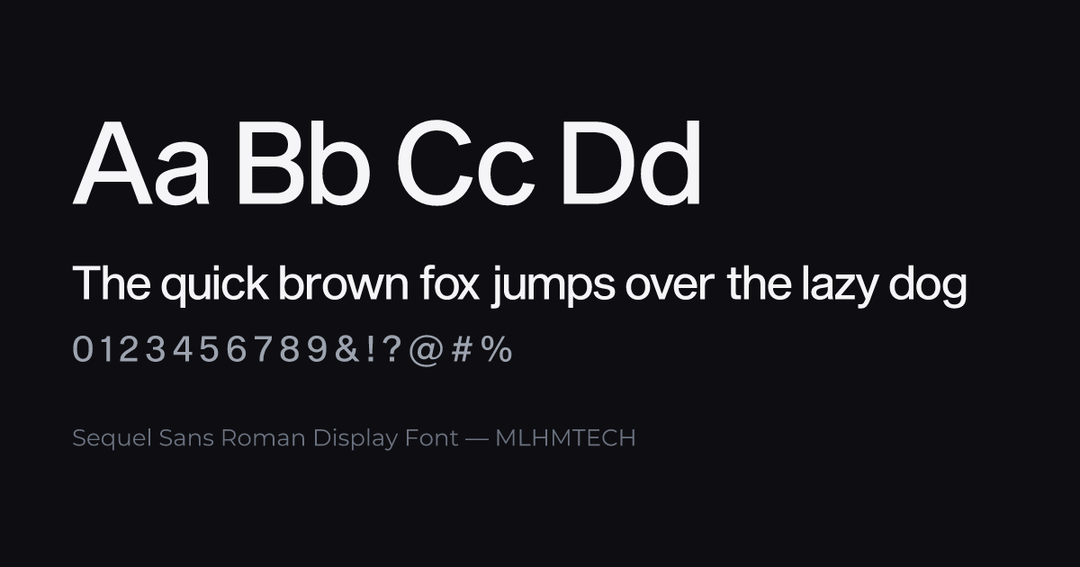
Sequel Sans Roman Display Font
Sequel Sans Roman Display is a modern, geometric sans-serif font ideal for headlines, logos, and branding. Its clean lines and balanced proportions make it a versatile choice for creative projects.
Sequel Sans Roman Display is a contemporary sans-serif typeface with a geometric structure. It features clean, open forms and a neutral yet distinctive character, making it suitable for a wide range of applications from editorial design to digital interfaces.
Whether you're crafting a bold logo, a striking poster, or a modern website, Sequel Sans Roman Display provides the clarity and style needed to make your text stand out.